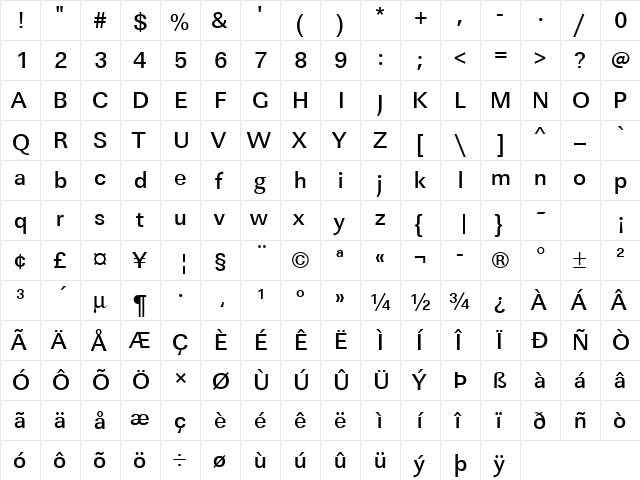
URWLinearTMed Regular
Design Context for URWLinearTMed Typeface
URWLinearTMed is a composed and adaptable typeface that performs quietly and consistently across a wide range of design contexts.